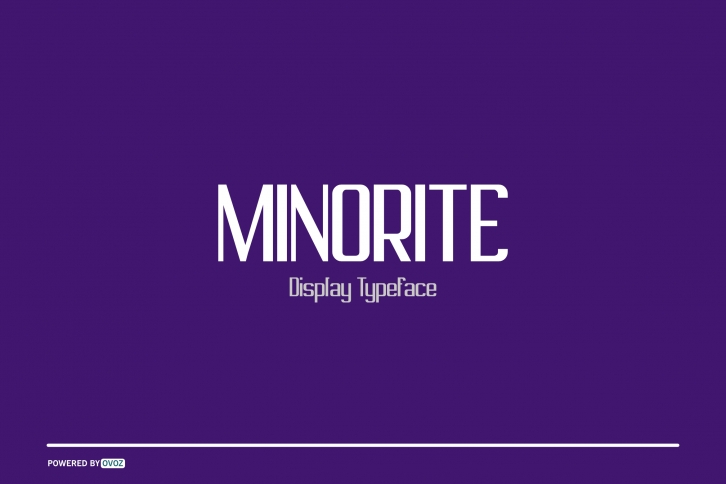
MINORITE DISPLAY TYPEFACE is a beautiful font that was designed by Ovoz shop. It's a great choice for designers and creatives who need such a font. It was released on December 4, 2019 and the file size is 12.96 MB. MINORITE DISPLAY TYPEFACE may give a more youthful, expressive and casual look to your project. It is a very beautiful, refined, elegant, and high-quality font.